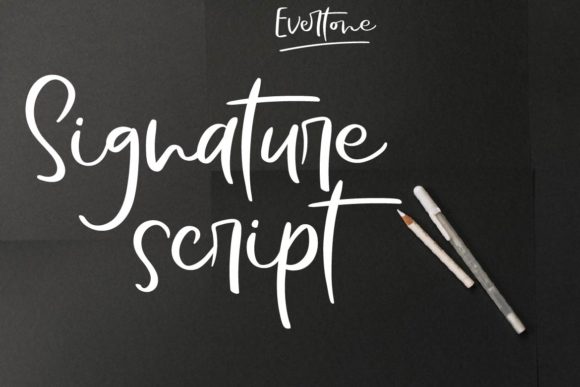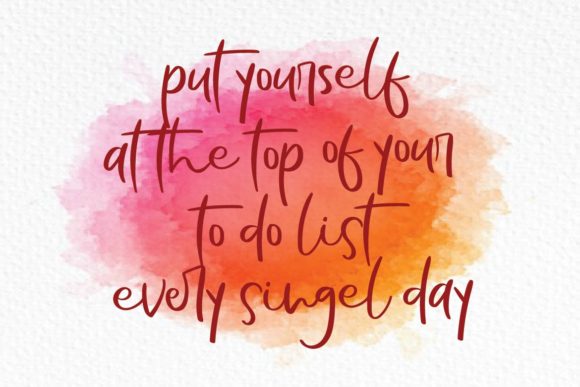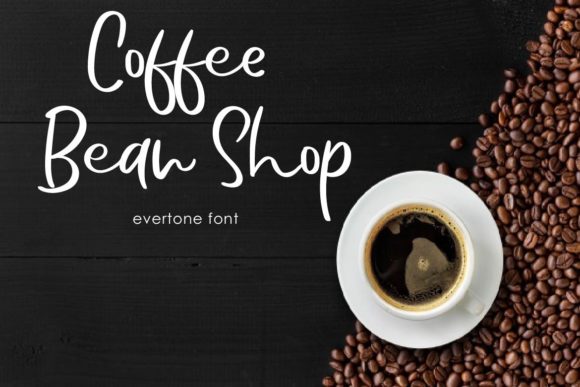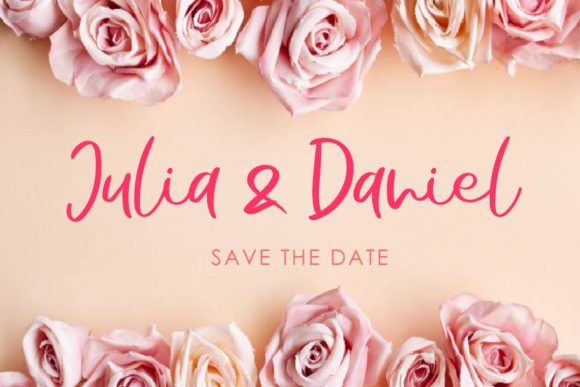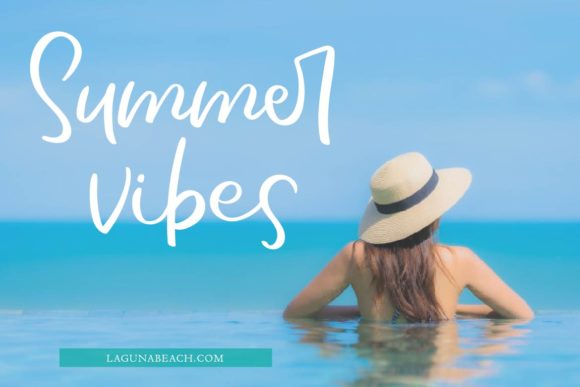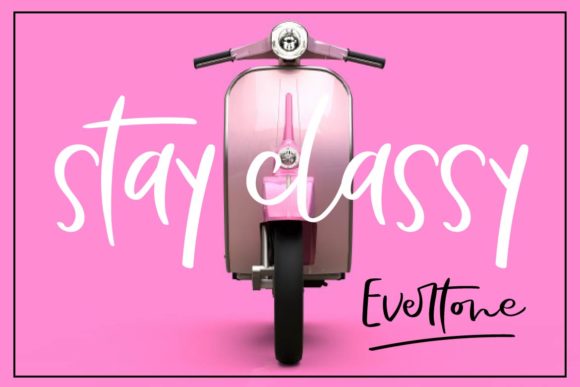
Introduction to Evertone Font
Evertone is an exquisite handwritten font, masterfully designed to become a true favorite.
Key Features of Evertone Font
Why Choose Evertone Font?
Evertone Font offers exceptional quality and versatility, making it a valuable addition to your design toolkit. Whether you’re creating for personal projects or commercial use, Evertone Font delivers professional results.